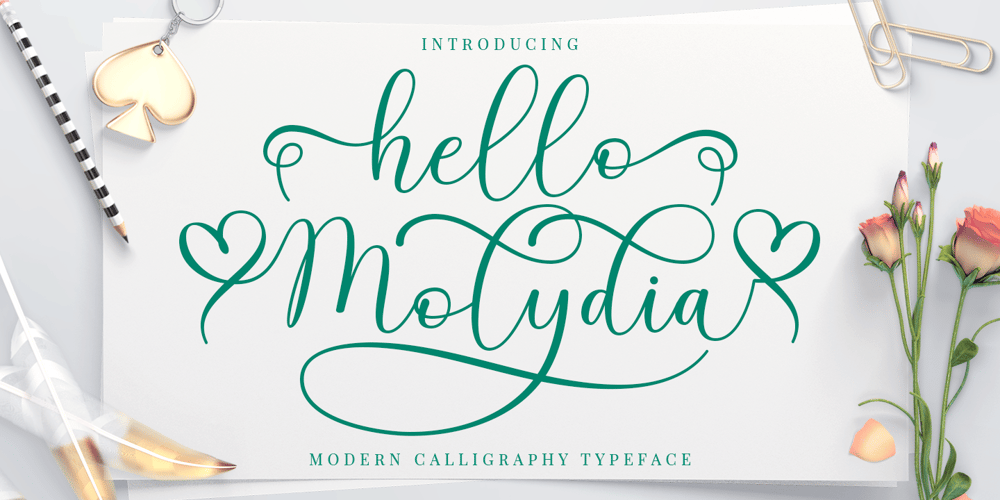
Hello Molydia Font Family was designed by M Akmal and published by Mega Type. Hello Molydia contains 1 styles and family package options. Hello Molydia is a sweet modern calligraphy font. This font is casual and elegant with swashes. Hello Molydia can be used for various purposes such as logos, product packaging, wedding invitations, branding, headlines, signage, labels, signatures, book covers, posters, quotes and more.Hello Molydia Script features OpenType stylistic alternates, and ligatures. International support for most Western Languages is included. To enable the OpenType Stylistic alternates, you need a program that supports OpenType features such as Adobe Illustrator CS, Adobe Indesign & CorelDraw X6-X7, Microsoft Word 2010 or later versions.How to access all alternative characters using Adobe Illustrator:https://www.youtube.com/watch?v=XzwjMkbB-wQHello Molydia Script is coded with PUA Unicode, which allows full access to all the extra characters without having special designing software. Mac users can use Font Book , and Windows users can use Character Map to view and copy any of the extra characters to paste into your favourite text editor/app.How to access all alternative characters, using Windows Character Map with Photoshop:https://www.youtube.com/watch?v=Go9vacoYmBwIf you need help or have any questions, please let me know. I’m happy to help.Thanks and Happy Designing!